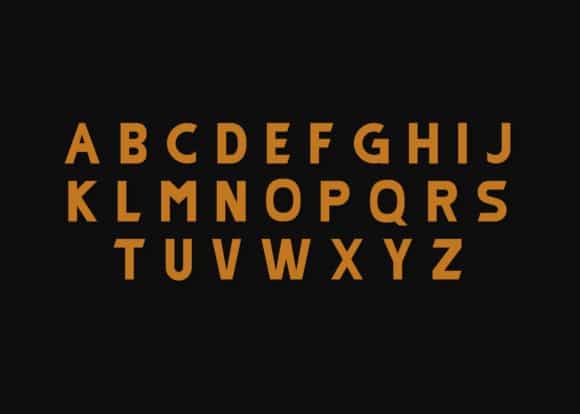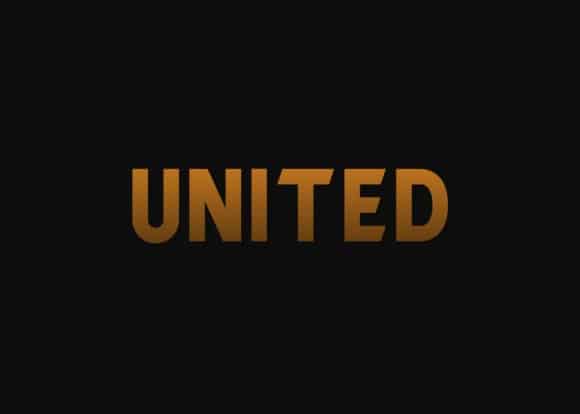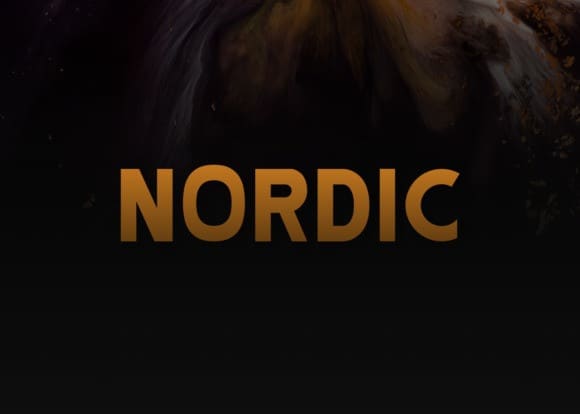
Monorealis Sans Serif Font
Monorealis Sans Serif Font is a modern Sans Serif typeface very much suitable for Film Posters, headlines, Block letters, Subheading, Logo Designs, Big Banners. Creative & Decorative Typography Web Designs. Made from font designer named Azis Ihsan. This font is a simple and neat sans serif font. Modern and futuristic, it can easily be matched to an incredibly large set of projects, so add it to your creative ideas and notice how it makes them stand out!